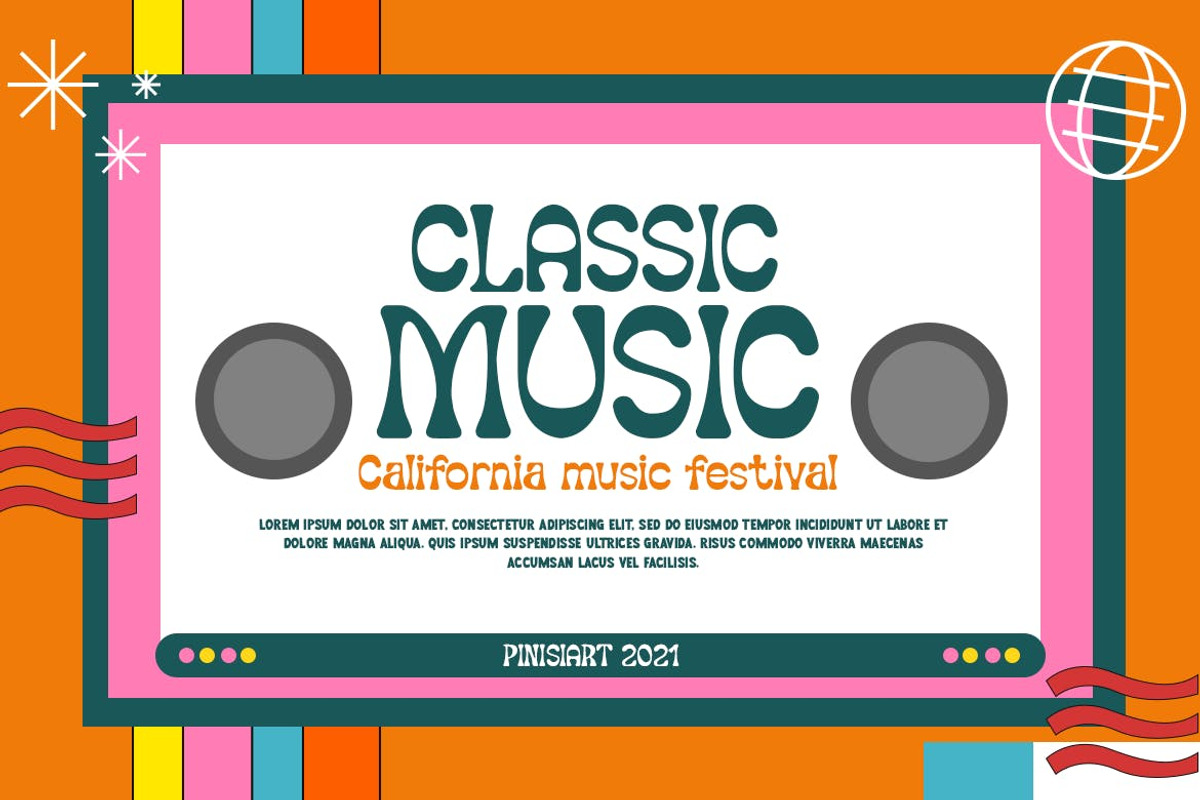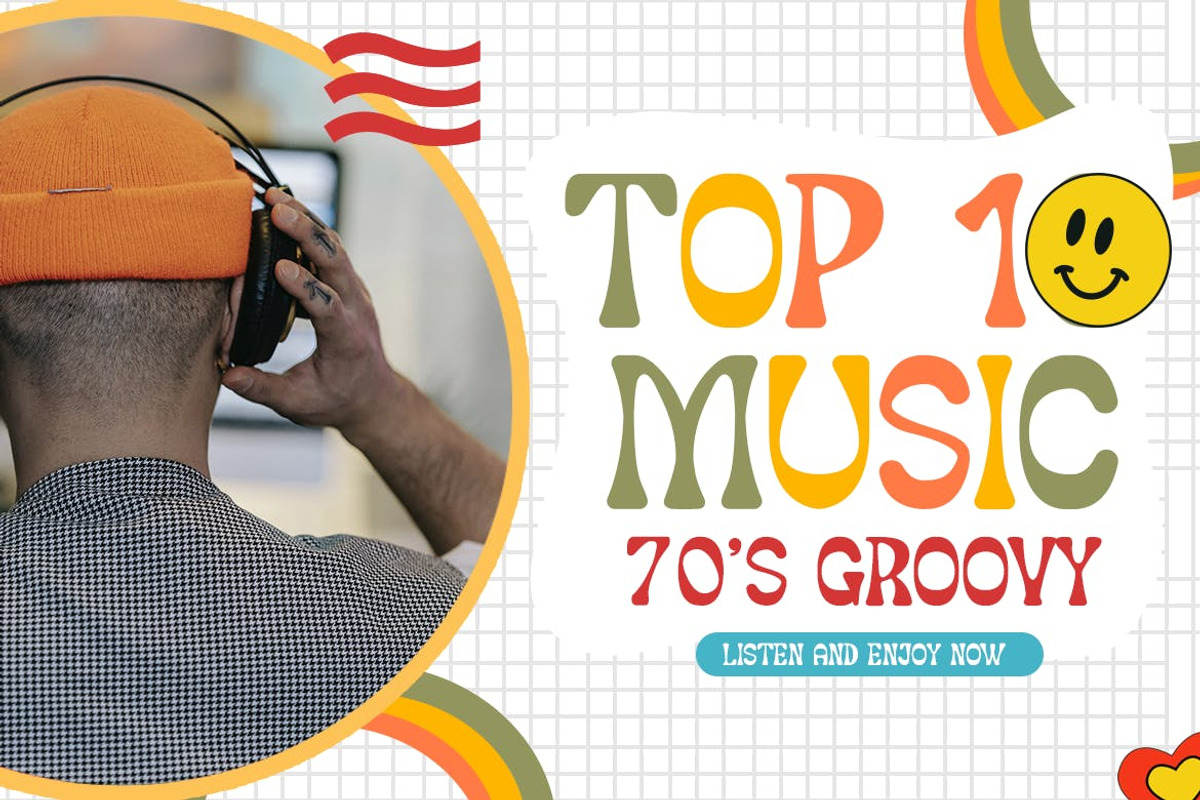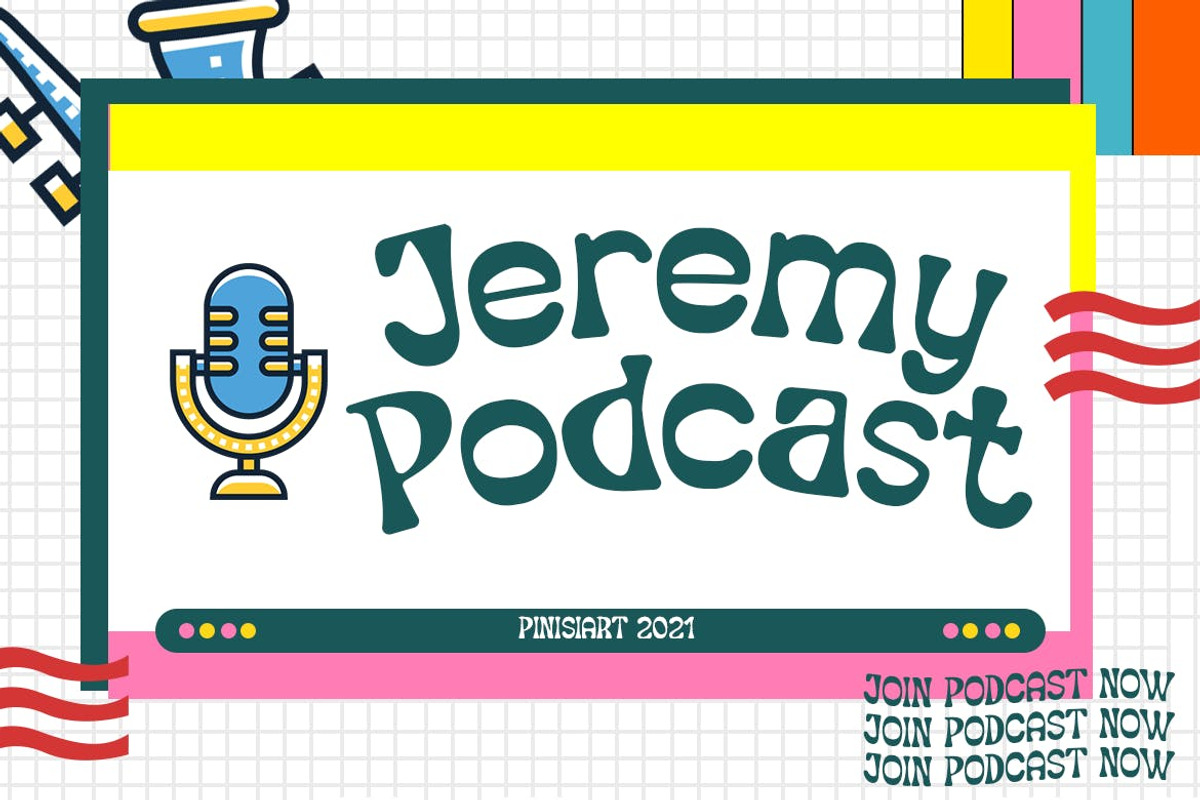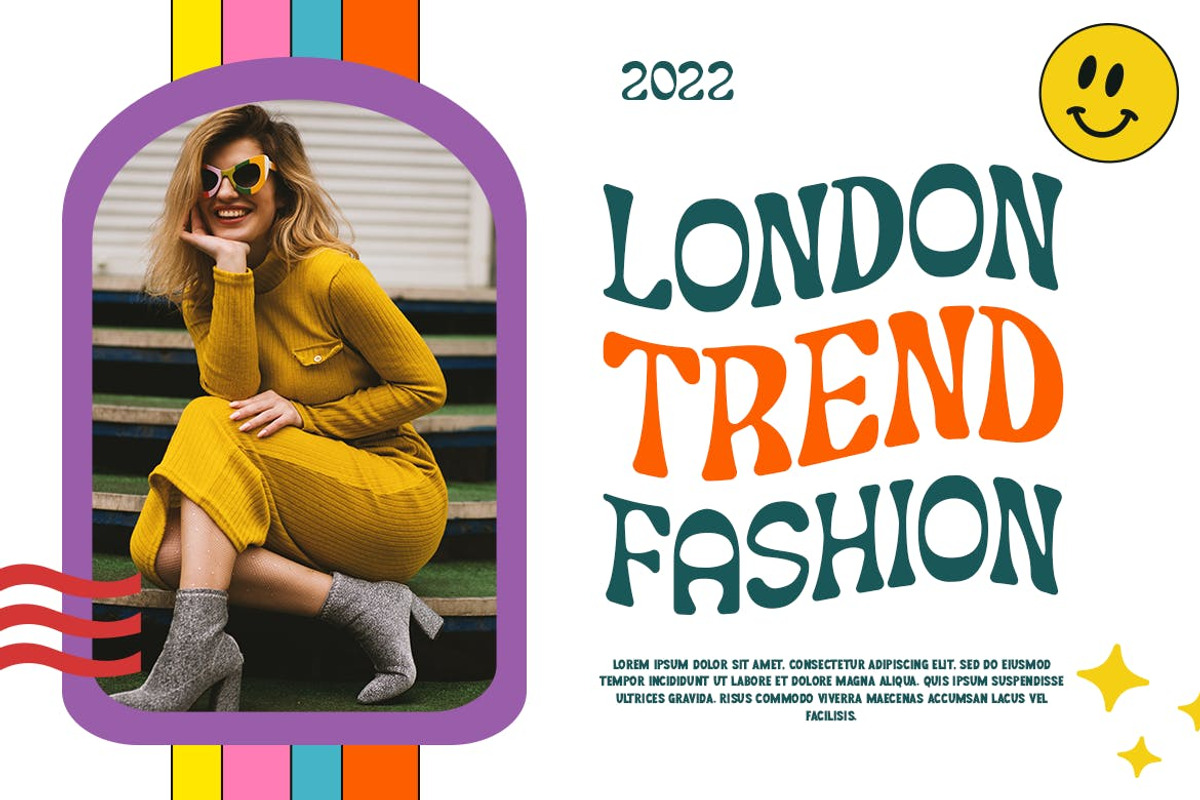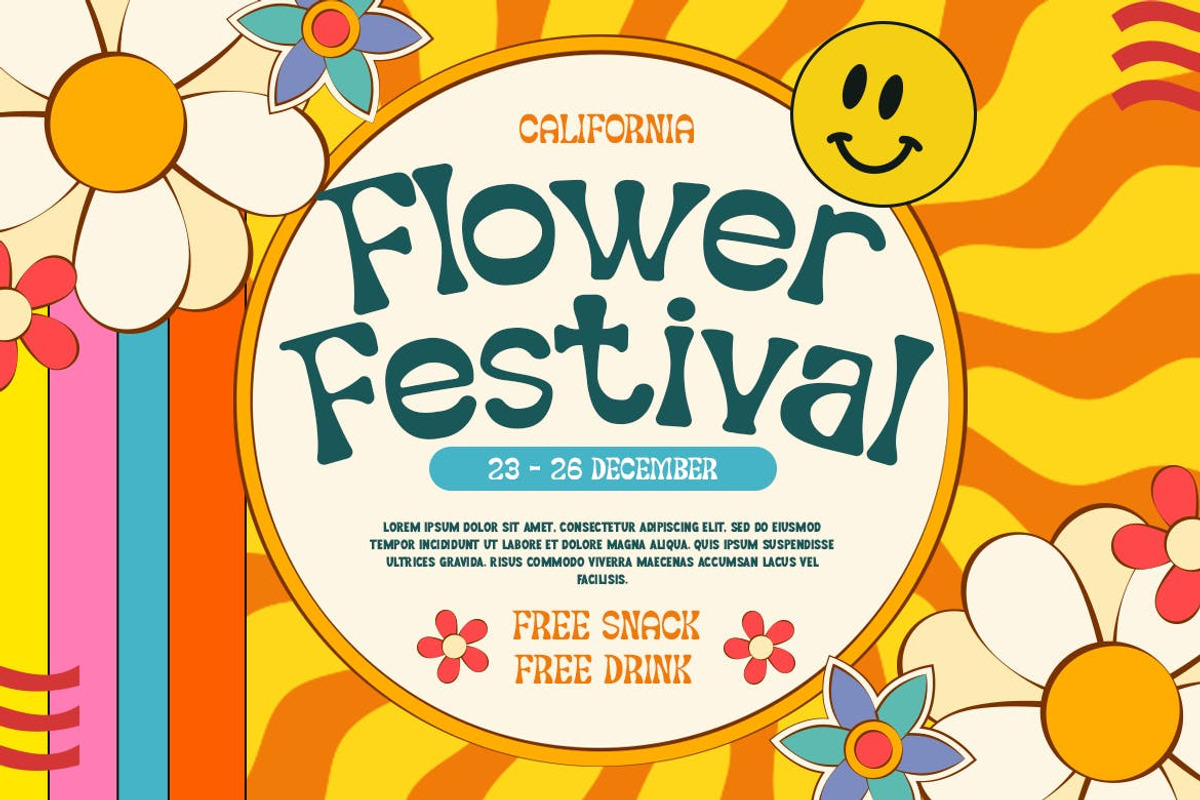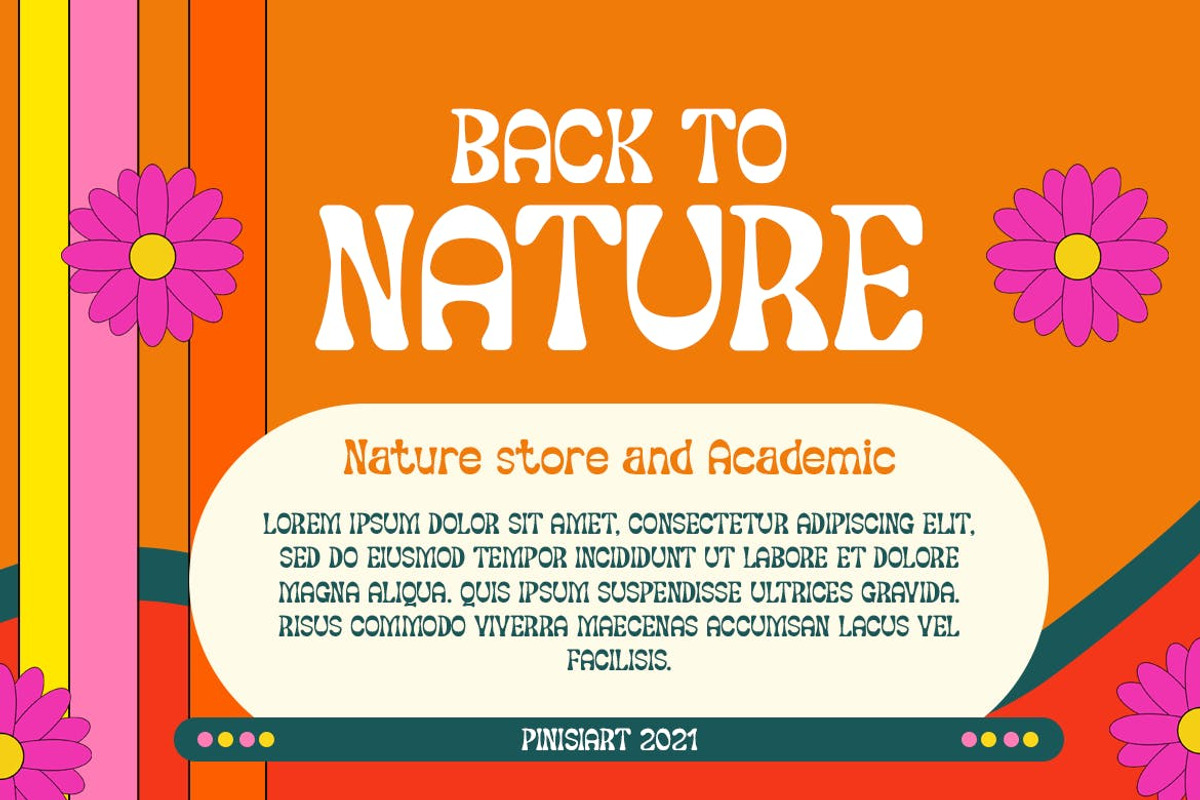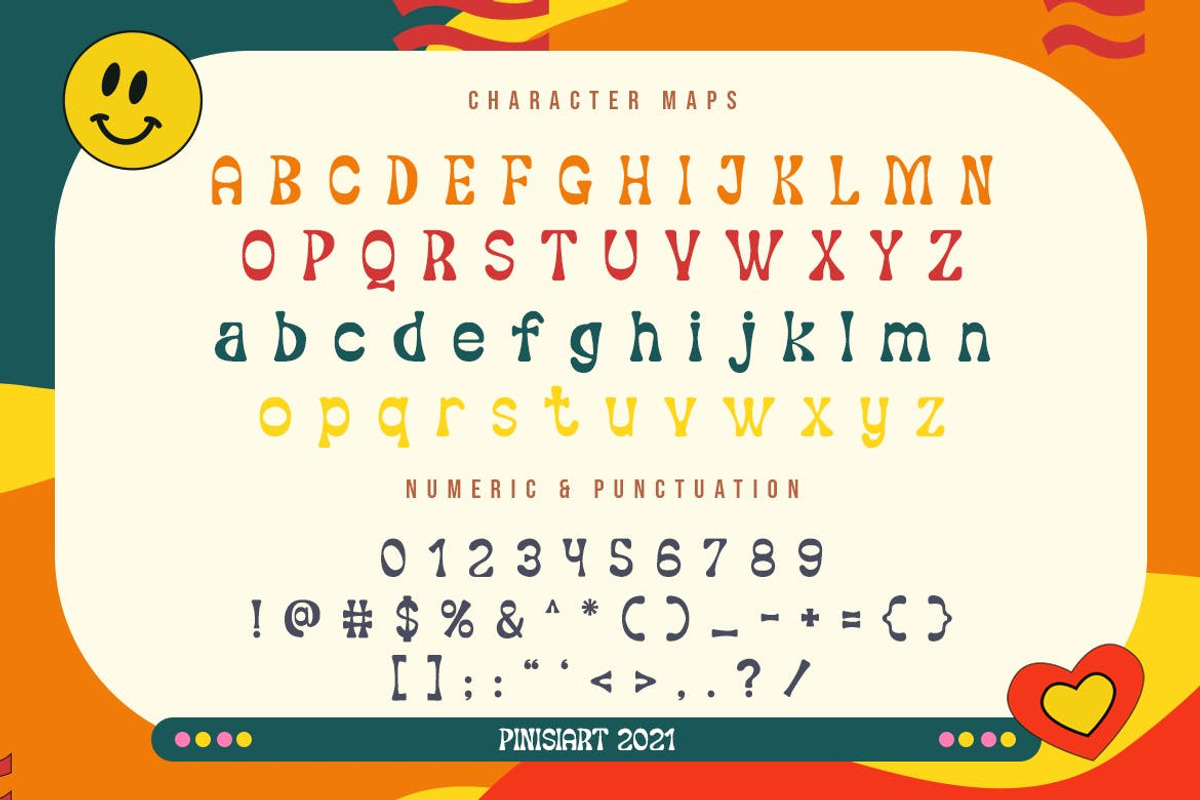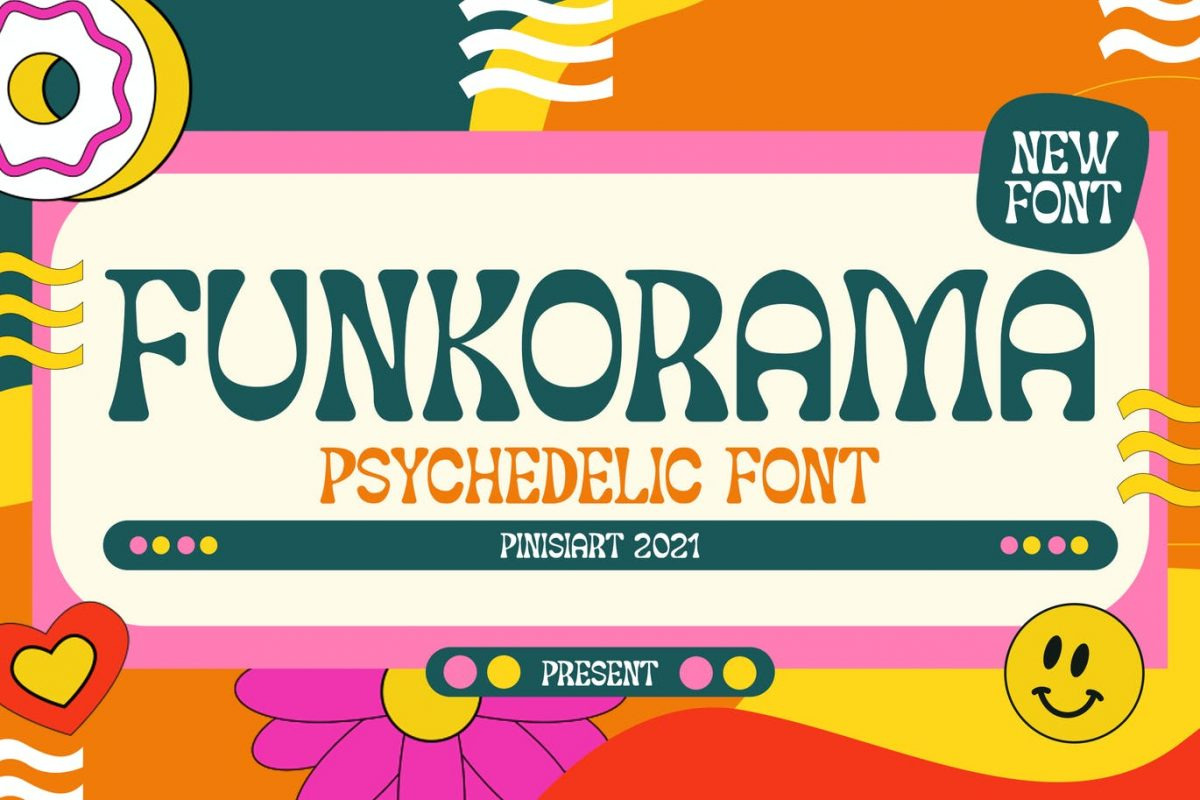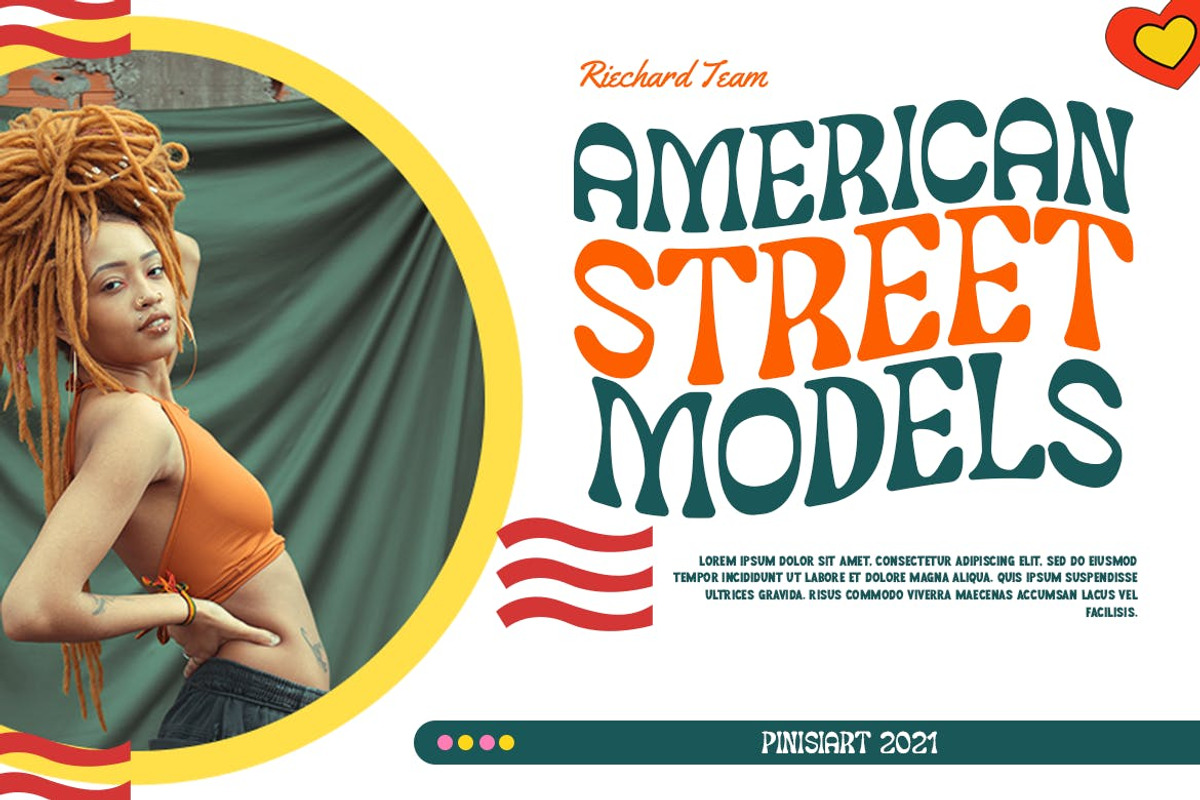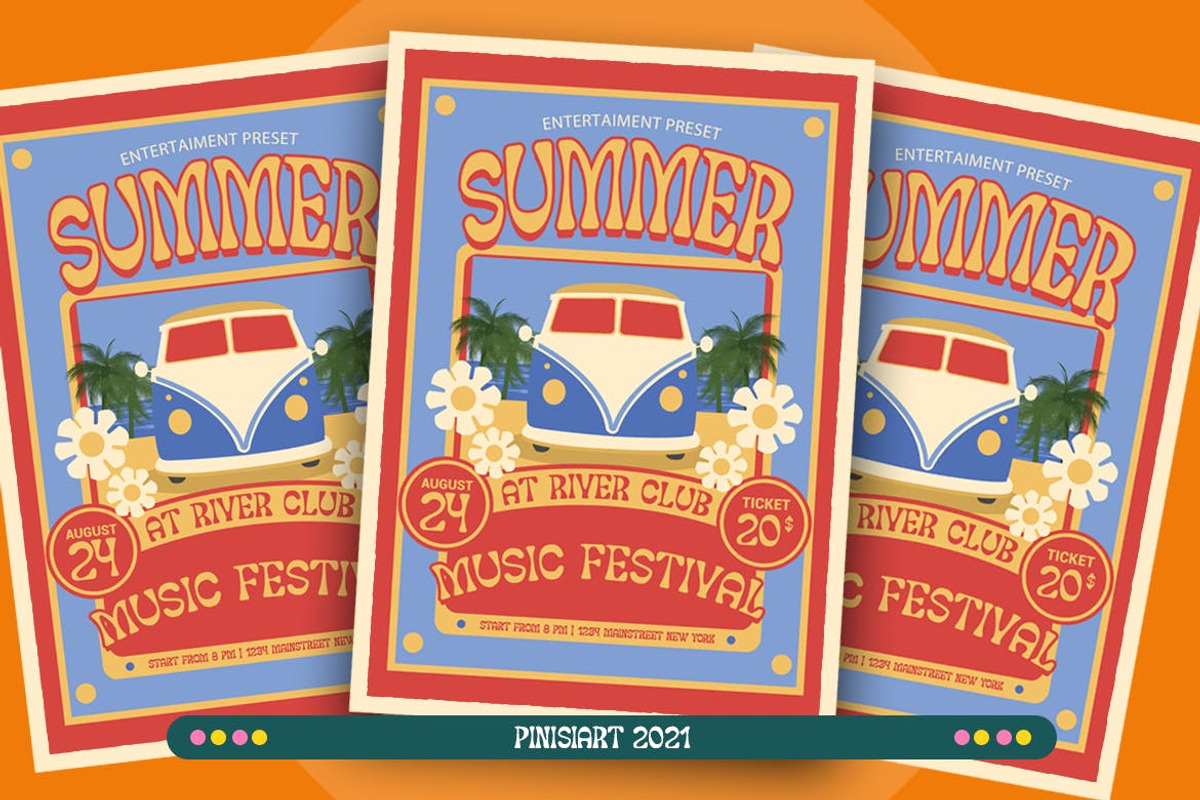
FUNKORAMA – Psychedelic Font
FUNKORAMA – psychedelic font
All about the funk, groove, and disco floor. Funkorama will bring memories from the late 70s to the modern and this technology era.
Suit perfectly for retro themes books market, music album covers, stationary, groove party invitation, poster, youtube covers, youtube thumbnails, social media page covers, and so on…